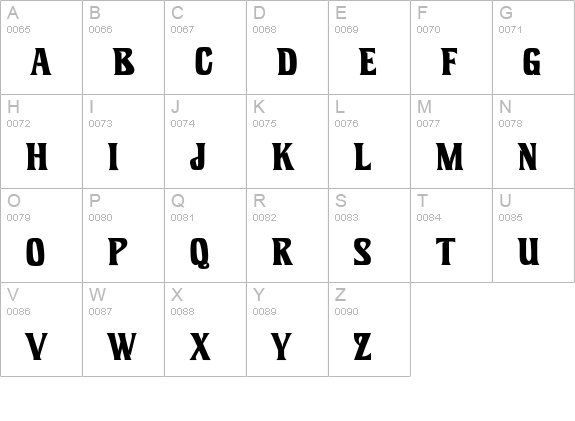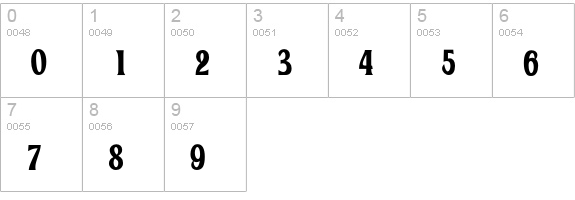
Introspect-BoldCondensed Font Details
Introducing Introspect-BoldCondensed font, a captivating and eye-catching typeface that will add a touch of elegance and sophistication to your designs. This bold condensed font is perfect for creating striking headlines and grabbing attention with its strong and commanding presence. With its sleek and modern design, Introspect-BoldCondensed font is versatile and can be used in a wide range of projects, from logos and branding to posters and packaging. Its condensed form allows for maximum impact, making it ideal for projects that require a bold statement. What sets Introspect-BoldCondensed font apart is not only its stunning aesthetics but also its availability. This font is freely available to download at FontsMarket.com, making it accessible to designers and creatives all around the world. Now you can enhance your designs with this exceptional font without any restrictions or limitations. The Introspect-BoldCondensed font offers a unique combination of strength and elegance, making it a must-have for anyone looking to make a bold statement with their typography. Its clean lines and sharp edges convey a sense of professionalism and sophistication, while its bold weight commands attention and ensures your message gets noticed. Whether you're working on a print project or a digital design, Introspect-BoldCondensed font will effortlessly elevate your work to new heights. Its versatility and striking appearance make it a valuable addition to any designer's font library. Don't miss out on the opportunity to enhance your designs with this exceptional font. Download Introspect-BoldCondensed font for free at FontsMarket.com and unleash your creativity with its bold and captivating style.